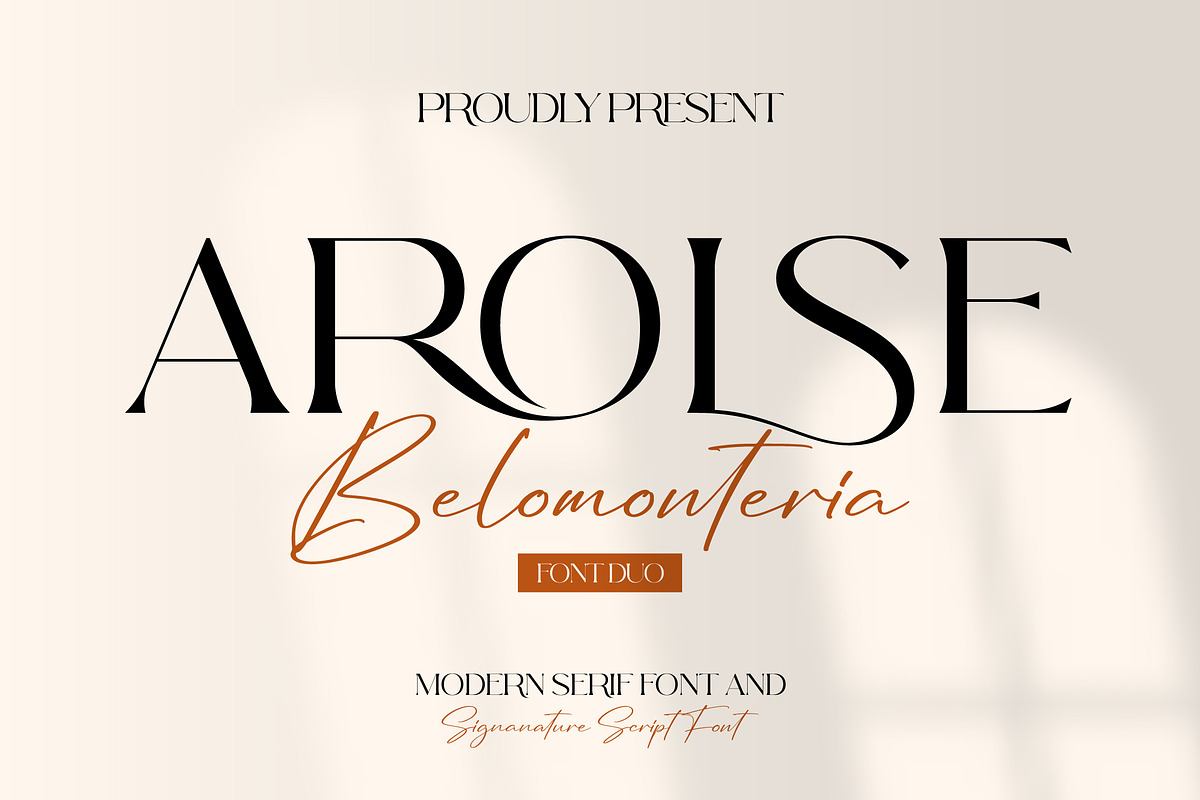
Arolse Belmonteria Font Duo Free Download is a stylish and versatile font pair that combines a sleek serif with a bold script. This dynamic duo is perfect for a wide range of design projects, including branding, invitations, logos, social media graphics, and more. The combination of the elegant serif and fluid script offers both structure and personality, making it ideal for modern and sophisticated designs.
The serif font brings a timeless and professional feel, while the script adds a personal, handwritten touch to your typography. Together, Arolse Belmonteria gives you flexibility and creativity, making it easy to craft unique and eye-catching designs.